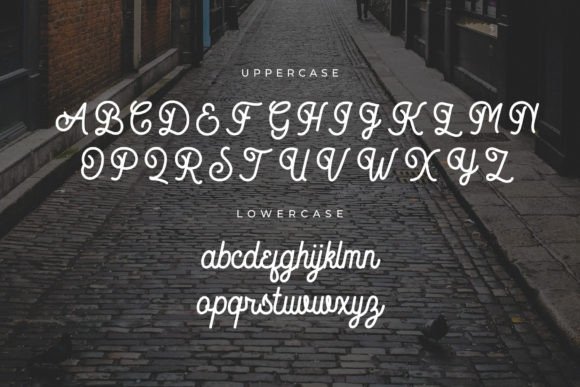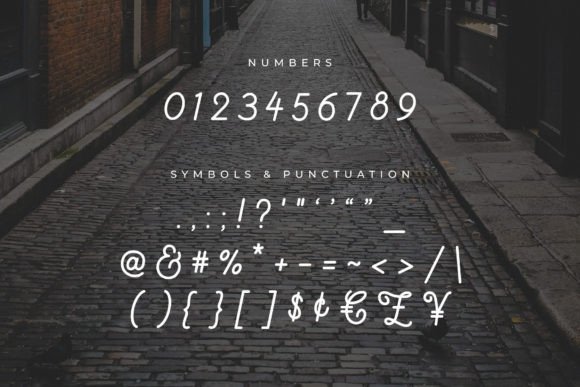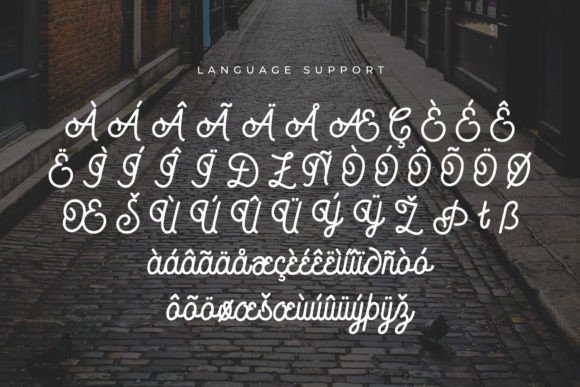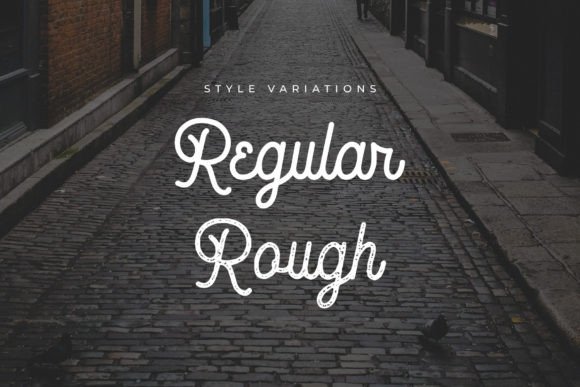
Discovering the Perfect Blend of Vintage Charm and Modern Sophistication
As a designer, there’s nothing quite like the thrill of stumbling upon a new font that perfectly captures the essence of a project. It’s that moment of ‘aha’ when everything falls into place, and the words start flowing effortlessly. For me, that moment came when I laid eyes on the Brick Lane Font – a beautiful sans-serif script typeface that exudes the perfect blend of vintage charm and modern sophistication.
Designed to evoke the feeling of urban streets and trendy vibes, the Brick Lane Font is a versatile tool that can be used for a wide range of applications. Its handcrafted look and feel make it perfect for anything from posters and flyers to websites and magazines. And the best part? It’s surprisingly easy to use, making it a valuable addition to any designer’s toolkit.
Brick Lane Font Key Features
- Font Size: The font family includes 6 weights, ranging from Thin (100) to Extra Bold (800), providing versatility for various design applications.
- Unique Characteristics: This font features a unique blend of modern and traditional elements, with a focus on elegant lines, subtle flair, and a sophisticated aesthetic.
Brick Lane Font Review
At first glance, Brick Lane Font seems to be a beautiful, elegant script font. ✨ Its flowing lines and soft curves evoke a sense of sophistication and refinement. The font is perfect for creating a luxurious and high-end feel in any design project. ✨
- Beautiful, elegant design: Brick Lane Font is perfect for creating a luxurious and high-end feel in any design project.
- Soft curves and flowing lines: The font’s design is both elegant and refined, making it perfect for use in branding, invitations, and other high-end designs.
- Wide range of weights: Brick Lane Font comes in a range of weights, from light to bold, making it easy to use in a variety of design contexts.
- ⚠️ Limited language support: Brick Lane Font may not support all languages, which can be a limitation for designers working on international projects.
- ⚠️ Limited customization options: While Brick Lane Font comes in a range of weights, it may not offer as many customization options as some other fonts.
Overall, Brick Lane Font is a beautiful and elegant script font that is perfect for creating a luxurious and high-end feel in any design project. While it may have some limitations, the font’s design and range of weights make it a valuable addition to any designer’s toolkit.
Common Use Cases for Brick Lane Font
The Brick Lane Font is ideal for creating vintage-inspired designs, such as:
- Street art and graffiti
- Old-fashioned advertisements
- Retro-style menus and signage